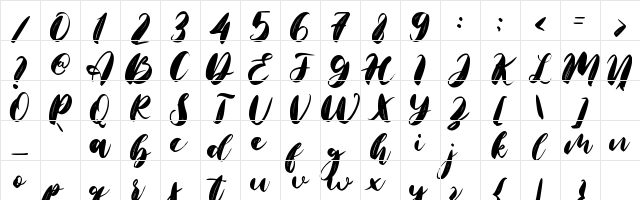
Christmas Together Regular
Designer: Nox Studio 2022 ( Sarif Hidayat)
Design Context for Christmas Together
Christmas Together is a composed and adaptable typeface that performs quietly and consistently across a wide range of design contexts.